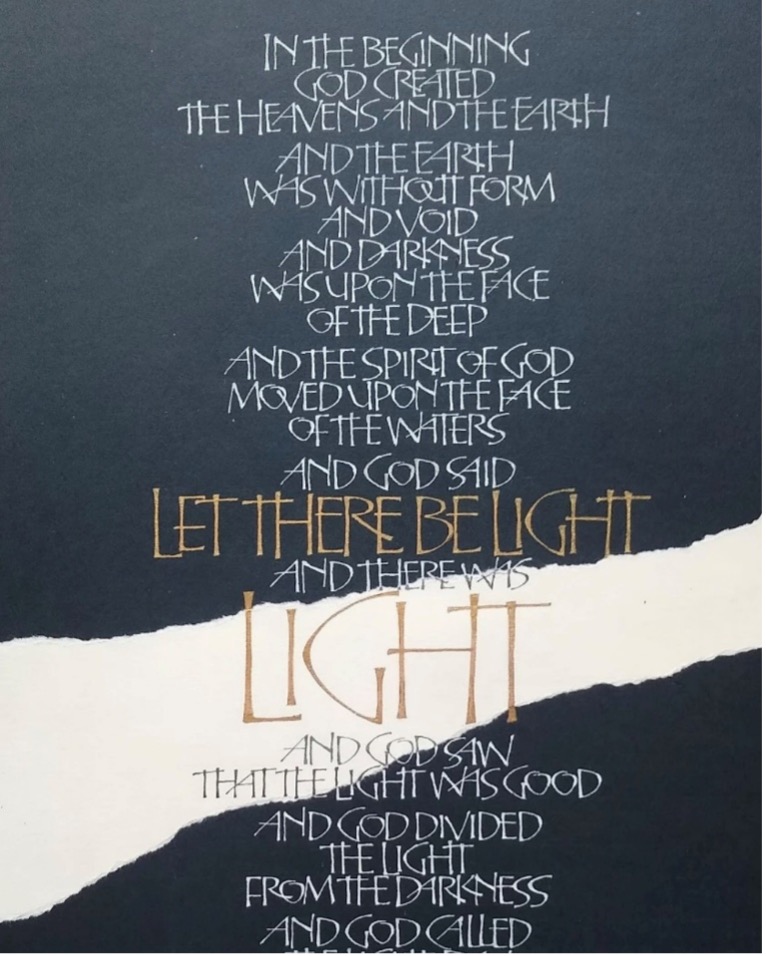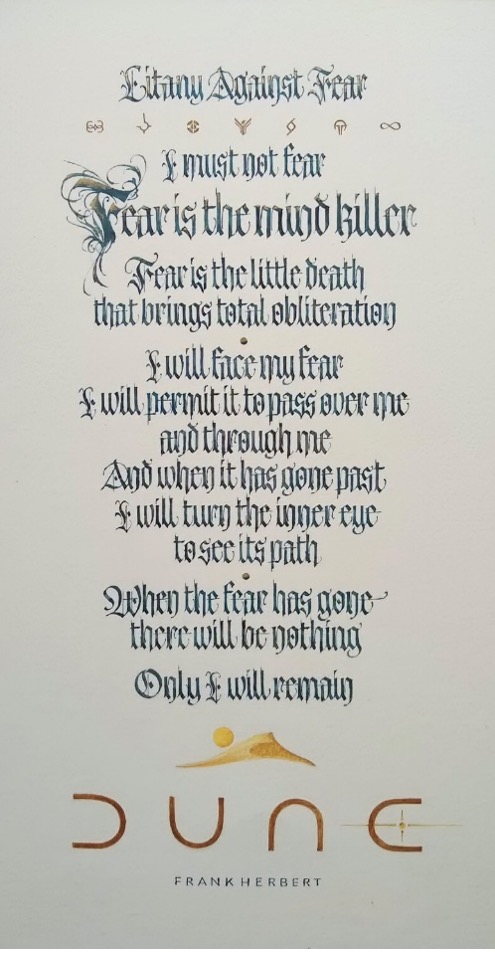
The October workshop, “Interpretation 4 Ways” with Peter Lloyd, explored how changes in size, weight, colour and style can bring calligraphy to life, highlighting important words and influencing how a piece is read and felt. Using examples of his own beautiful work, Peter demonstrated how these techniques can enhance a composition and convey emotion. Participants were encouraged to experiment with their chosen poems or verses, putting ideas onto paper and allowing the design to develop naturally.